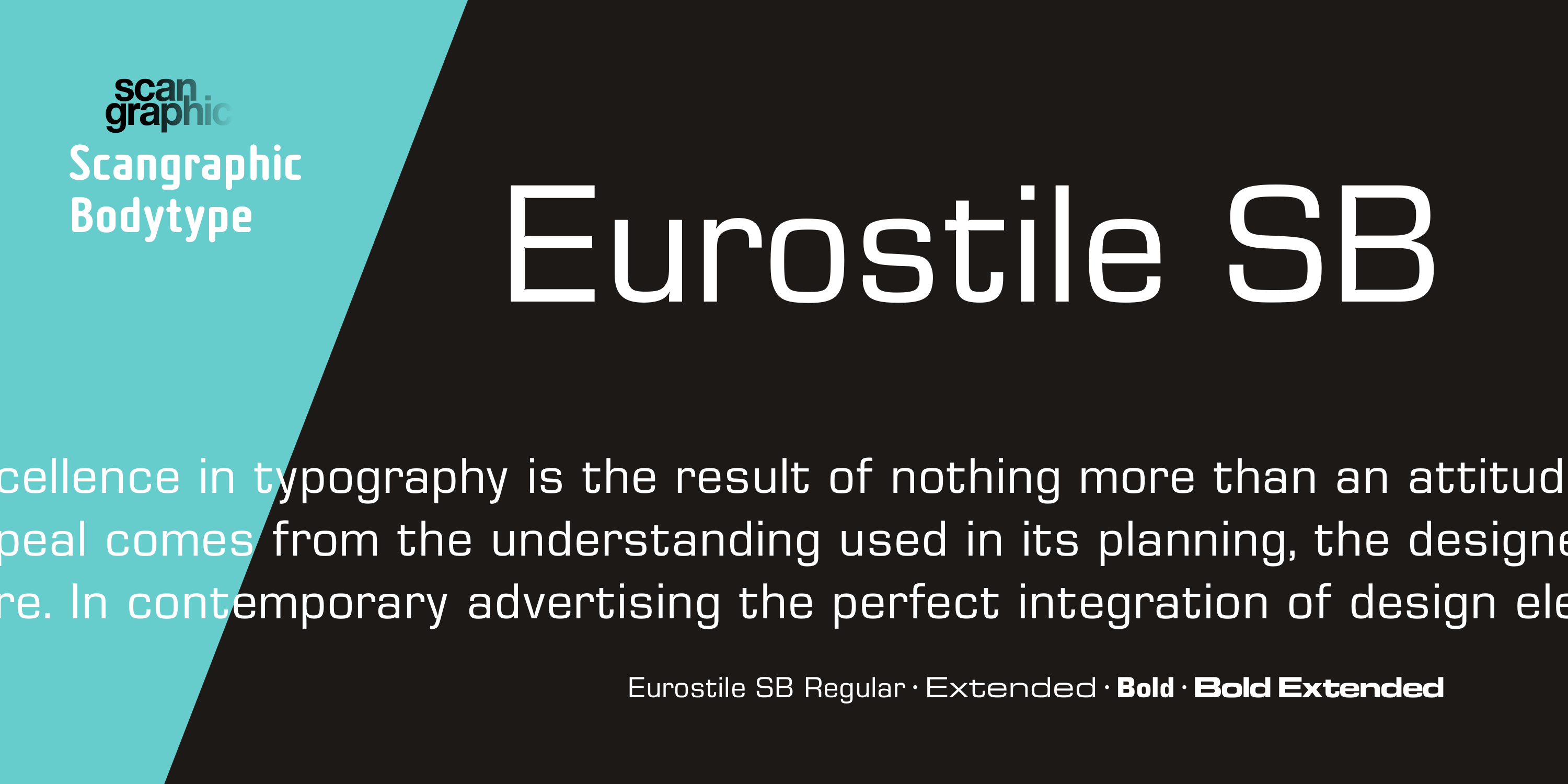
Eurostile SB Font is ideal for futuristic technology branding, sci-fi movie titles, space industry communications, modern architectural signage, high-tech product packaging, advanced engineering documentation, aerospace marketing materials, digital interface design, contemporary industrial projects, and innovative technology applications. This futuristic typeface creates authentic technological atmosphere in both space-age print and digital innovation platforms.
What makes Eurostile SB Font exciting is its perfect embodiment of space-age design with geometric precision and technological sophistication that captures the essence of futuristic innovation. The font features angular letterforms with aerospace proportions and technological character details that evoke space missions, cutting-edge technology, and scientific advancement. Its futuristic design establishes an atmosphere of technological progress and space-age excellence that resonates with tech-savvy audiences seeking authentic innovation and scientific sophistication.
Eurostile SB Font family includes technological variations: Light, Regular, Medium, Bold, and Extended versions, each with futuristic alternates and technological character sets. Each variant maintains the font's space-age personality while providing designers with innovative options for creating technological typography systems and futuristic communication materials.
This exceptional technological typeface brings authentic innovation credibility to projects requiring futuristic presentation. Whether you're designing tech brands, aerospace marketing, or scientific content materials, Eurostile SB Font Free Download delivers outstanding modernity and technological sophistication. The font's futuristic proportions and space-age details ensure memorable technological connection across various innovation applications.
Technology companies and aerospace organizations recognize how Eurostile SB Font perfectly captures the essence of space-age design and technological advancement. Its futuristic foundation combined with scientific precision makes it essential for technology and aerospace design projects. Download today and futurize your designs with this exceptionally advanced technological typography.